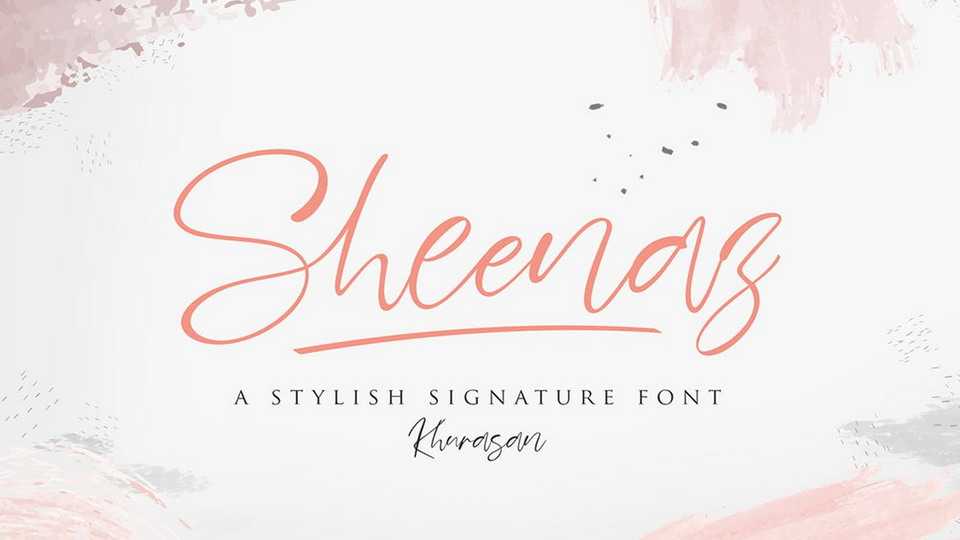
Download Sheenaz Script font, a stylish signature style typeface with elegant and natural feel. Sheenaz Script is suitable for logo, branding, wedding, watermark, greeting card, poster and any design that you create.